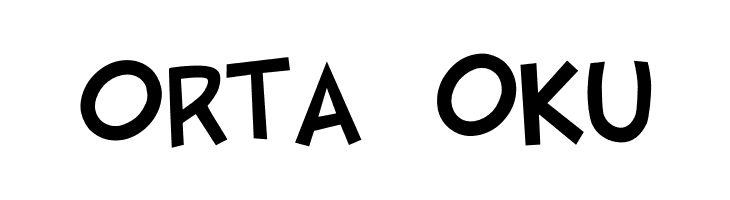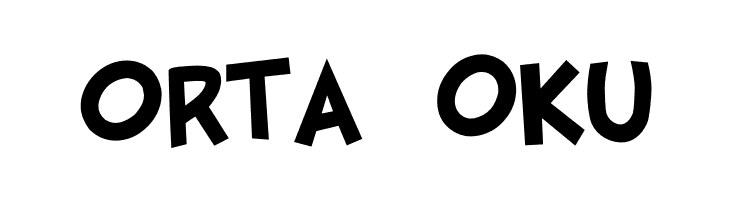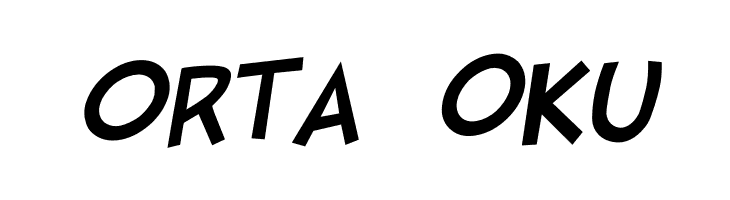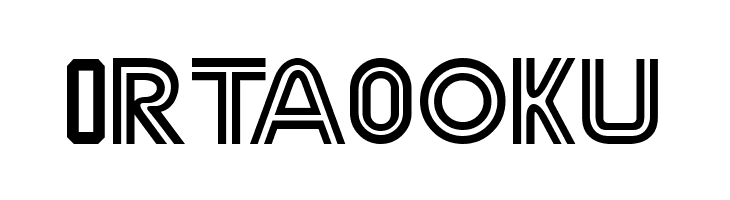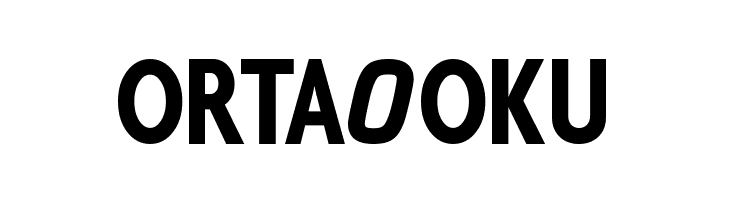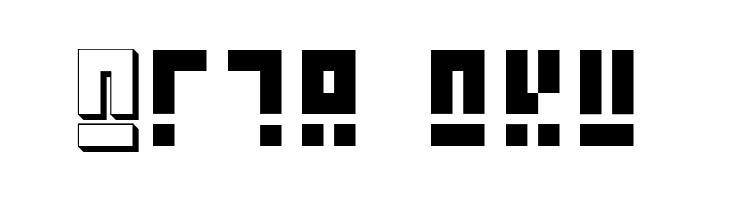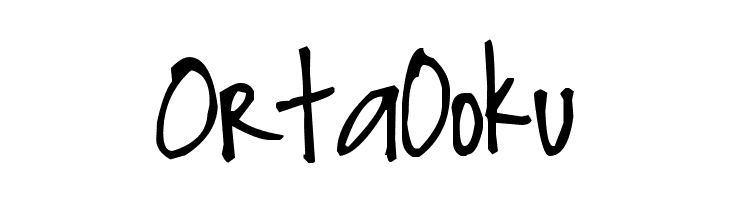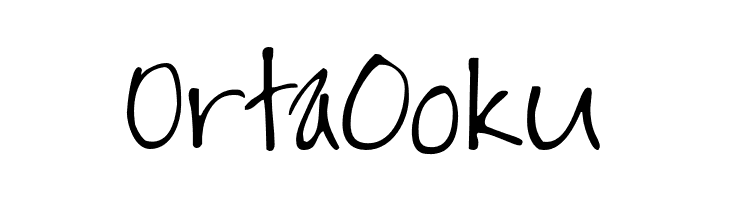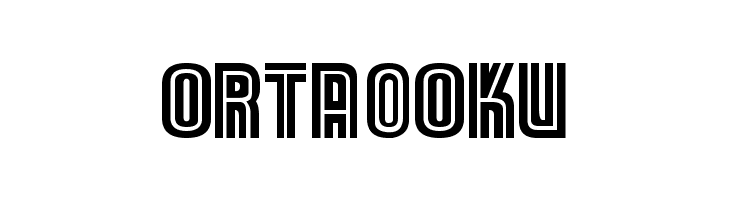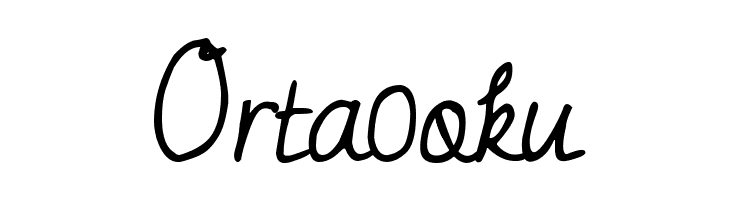
A refined, thin serif font with high contrast and elegant design.
A light, italic font with a sophisticated and elegant design.
A bold, modern font with thick strokes and geometric style.
A bold, italic serif font with strong, dynamic strokes and sharp serifs.
A bold, italic font with high contrast and dynamic style.
A bold serif font with high contrast and elegant, sharp serifs.
A cursive, handwritten font with elegant, flowing lines.
A playful, bold font with rounded edges and a whimsical style.
A dynamic, expressive handwritten font with fluid strokes and a lively appearance.
A casual, handwritten font with a playful and informal style.
Elegant cursive script with a handwritten style.
Expressive handwritten script font.
A playful, rounded font with a casual, comic-like style.
A playful, italicized font with smooth, rounded strokes and moderate contrast.
A modern, bold, and angular font with a slight slant.
A bold, modern font with geometric lines and consistent stroke width.
A bold, distressed font with a grunge texture and rugged appearance.
A bold, dynamic font with sharp angles and a lightning bolt motif.
A rugged, distressed font with jagged edges and a chaotic, hand-drawn style.
A bold, distressed font with a grunge, spray-painted look.